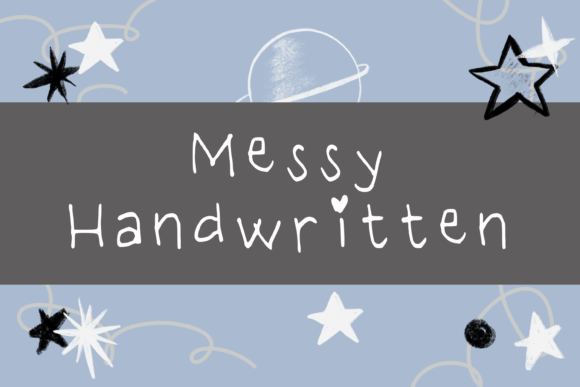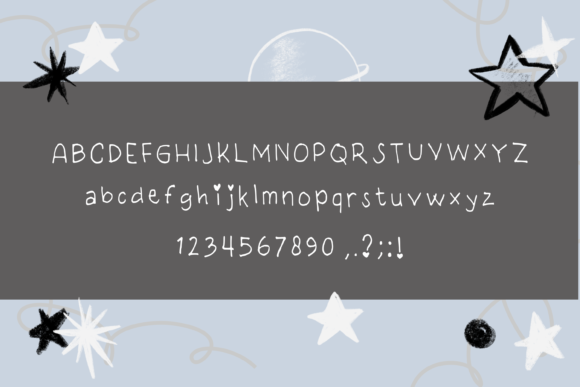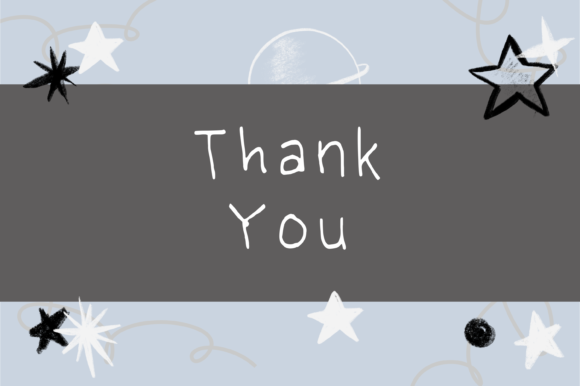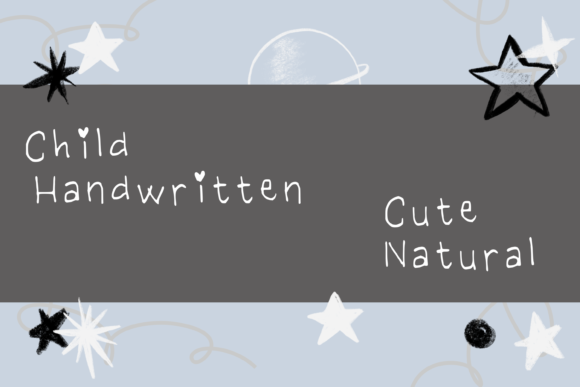
Messy
About Messy Font
Messy is a cute and friendly handwritten font. Its natural and unique style makes it incredibly fitting to a large pool of designs. The only limit is your imagination!